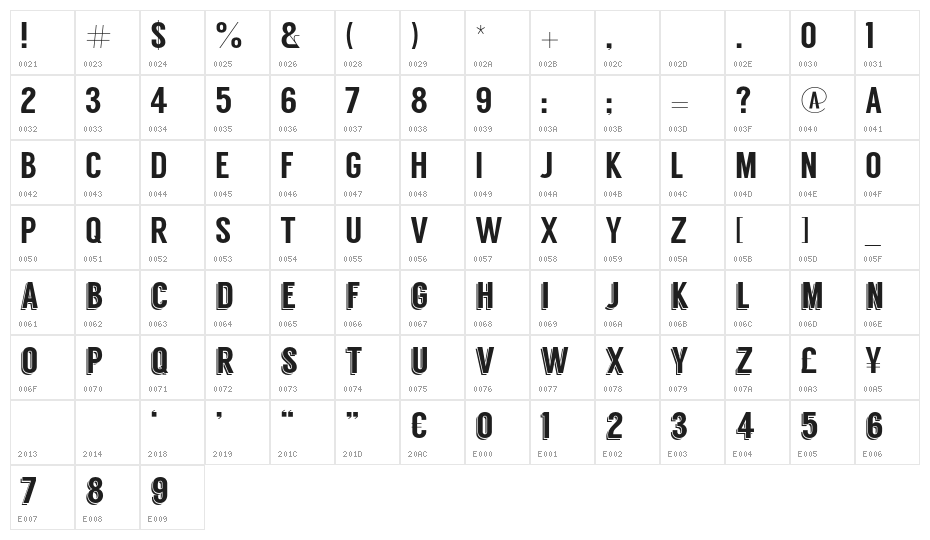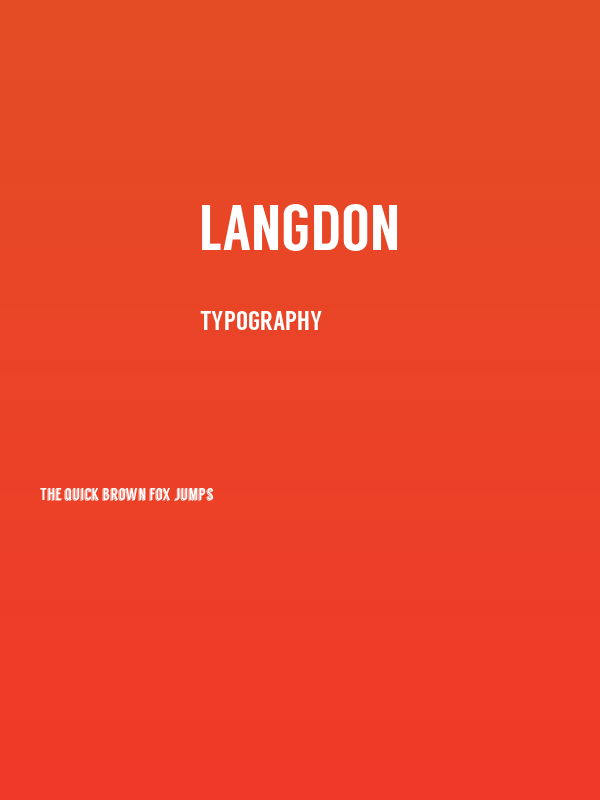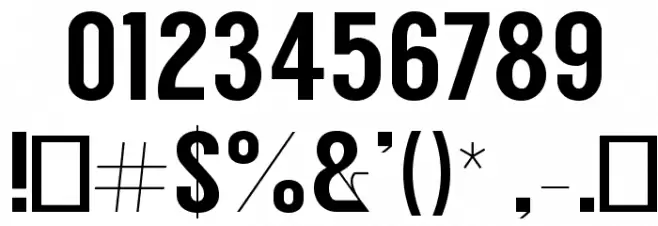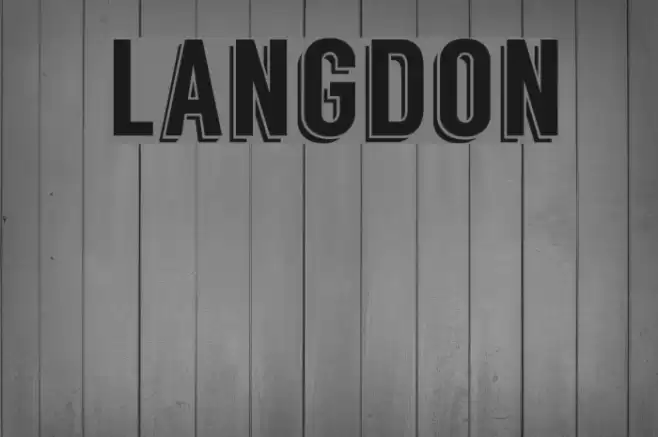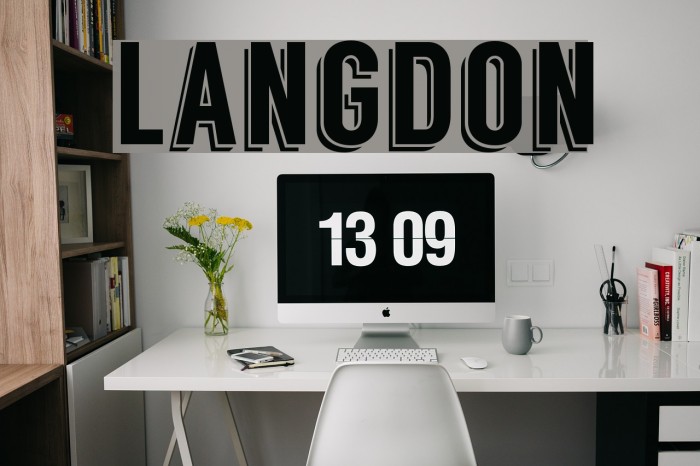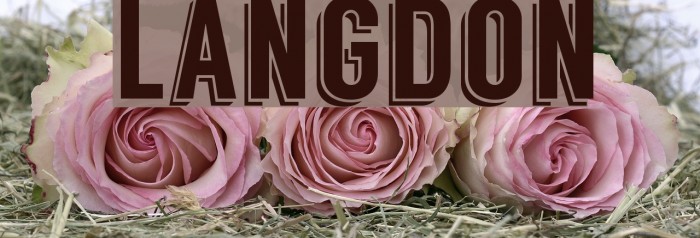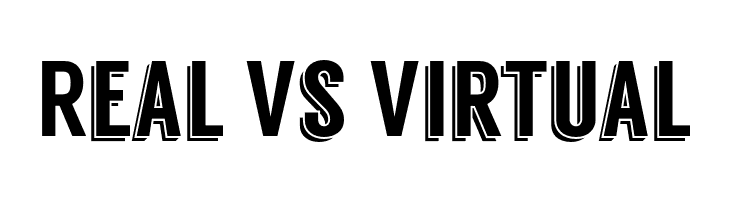
Langdon Font
Langdon Description
This font features a bold and impactful design with strong geometric shapes and clean lines. The uppercase letters are prominent and assertive, making a statement with their solid and block-like appearance. The numbers and special characters maintain the same boldness, ensuring consistency across all elements. The font's style is reminiscent of vintage signage and poster designs, offering a classic yet modern aesthetic. Its high contrast and wide character spacing enhance readability, making it suitable for attention-grabbing headlines and titles.
Måns Grebäck
| Proposed Projects | This font is perfect for branding projects, poster designs, signage, and any creative work that requires a strong visual impact. |